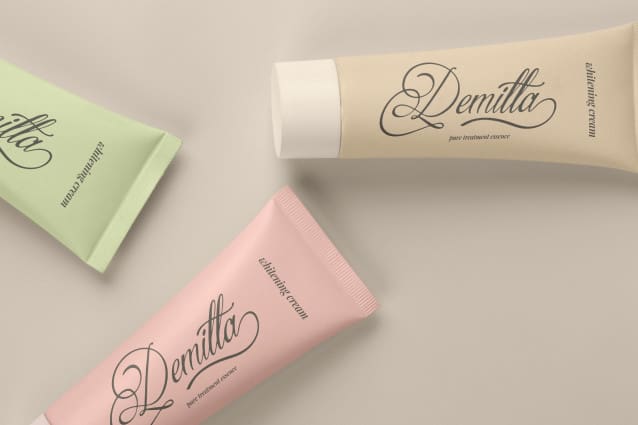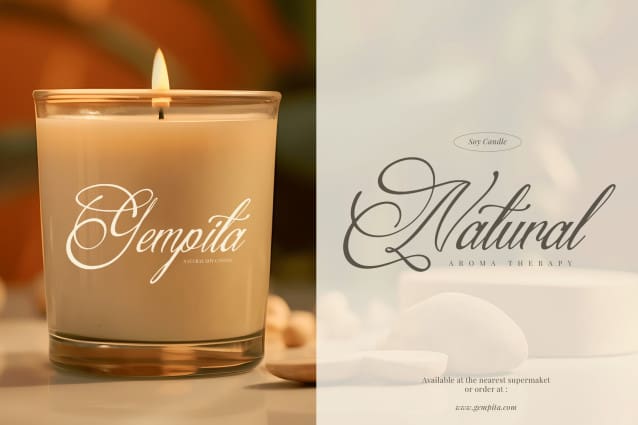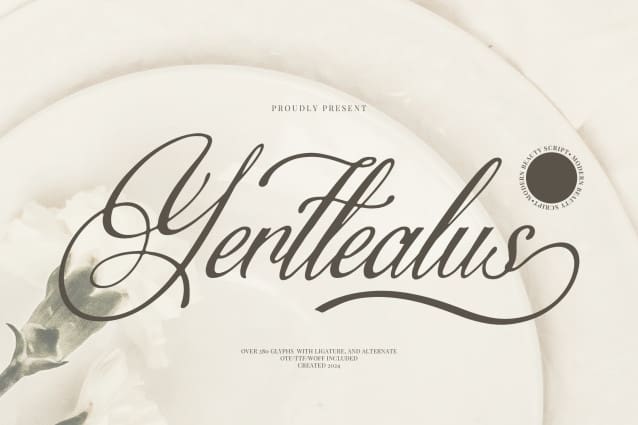
Yertlealus Font
Yertlealus Font | Modern Beauty Script, from Denustudios, suitable for any projects such as: logos, branding projects, homeware designs, product packaging, mugs, quotes, posters, shopping bags, t-shirts, book covers, name card, invitation cards, greeting cards, label, photography, watermark, special events, and all your other lovely projects that need a beautiful script taste.